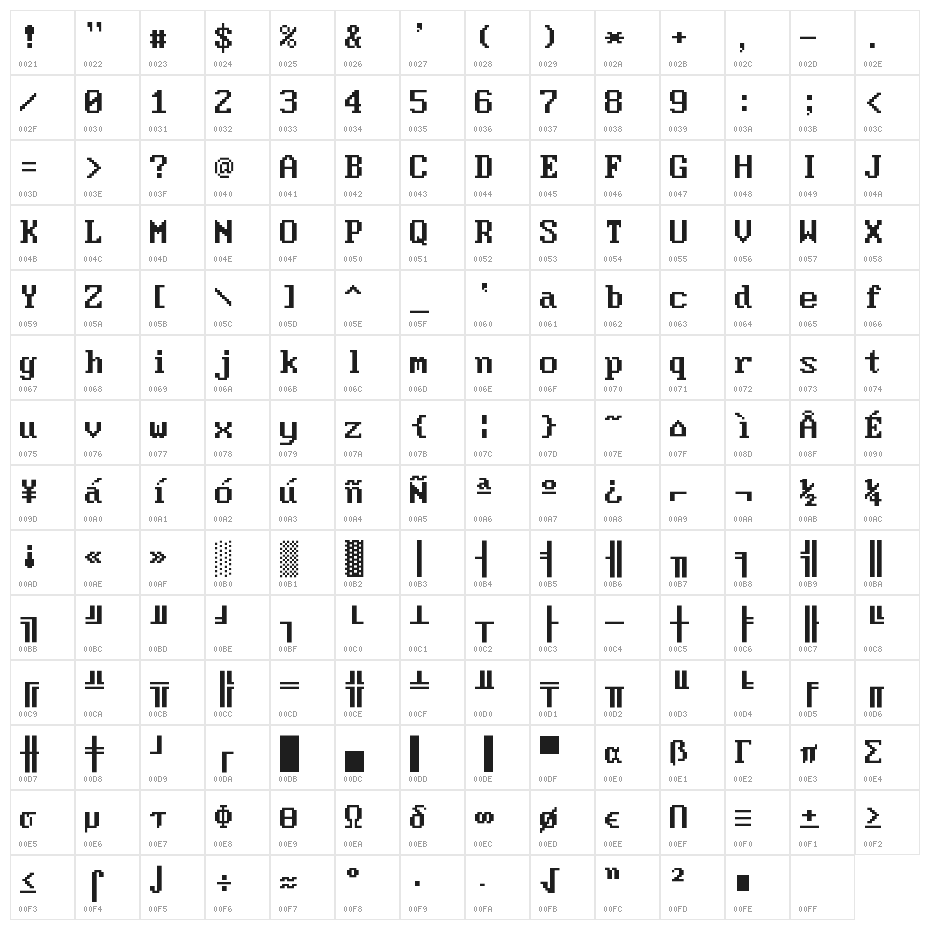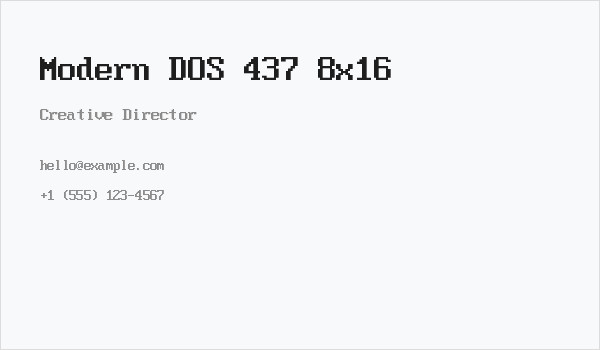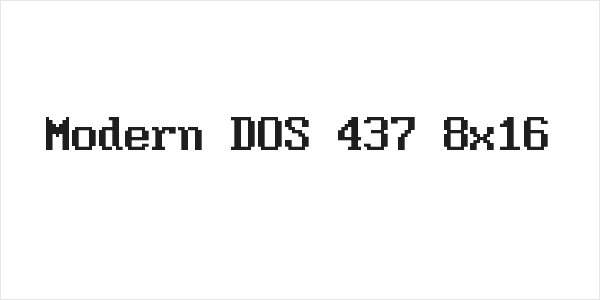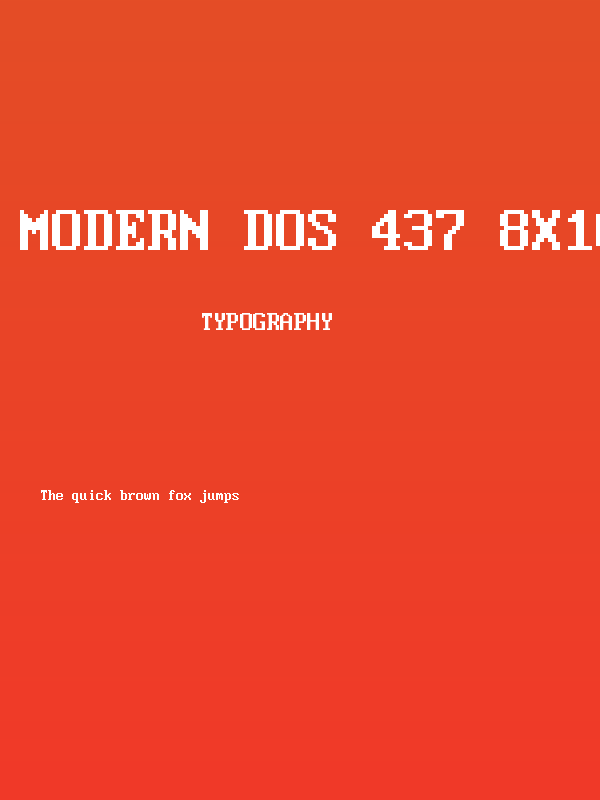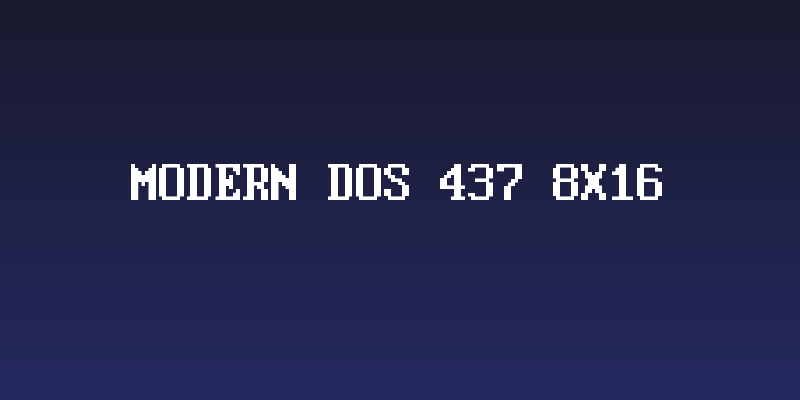
Modern DOS 437 8x16 Font
Modern DOS 437 8x16 Description
This font is a pixelated, monospaced typeface reminiscent of classic computer and console text. Each character is uniformly spaced, providing a consistent and structured appearance. The design is straightforward, with each letter and number formed by a grid of pixels, creating a retro, digital aesthetic. The uppercase and lowercase letters are distinct, yet maintain a cohesive style. Numbers and special characters are clear and easily distinguishable, making this font highly legible. Its nostalgic feel is ideal for projects that aim to evoke the early days of computing or video games.
| Use Case | Headlines, Logos, Digital displays |
| Proposed Projects | Ideal for retro video games, digital art, coding environments, and nostalgic design projects. |